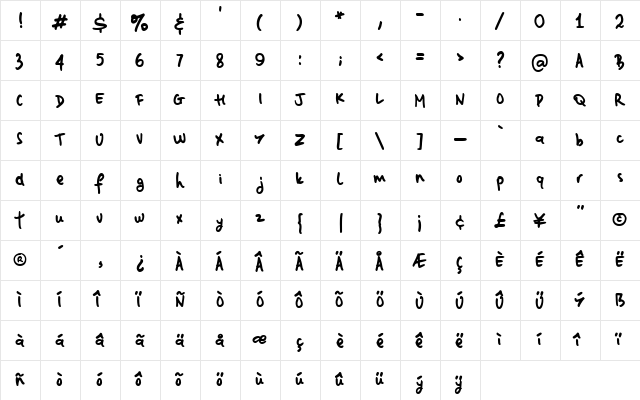
EasyNotes Regular
| Foundry | Ay硠Atalay |
| Designer | Ay硠Atalay |
Design Context for EasyNotes Typeface
EasyNotes offers clean, dependable letterforms without strong stylistic allegiance, making it a practical choice for designers who need flexibility.